The font type/name was hidden for some reason for “Aerial”. Please help as I’ve already looked through hundreds of Stencil & Military style fonts.
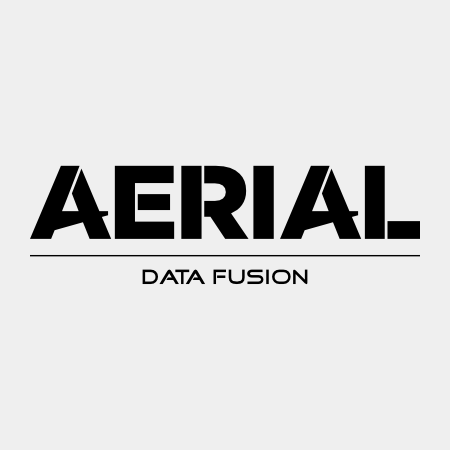
The font type/name was hidden for some reason for “Aerial”. Please help as I’ve already looked through hundreds of Stencil & Military style fonts.